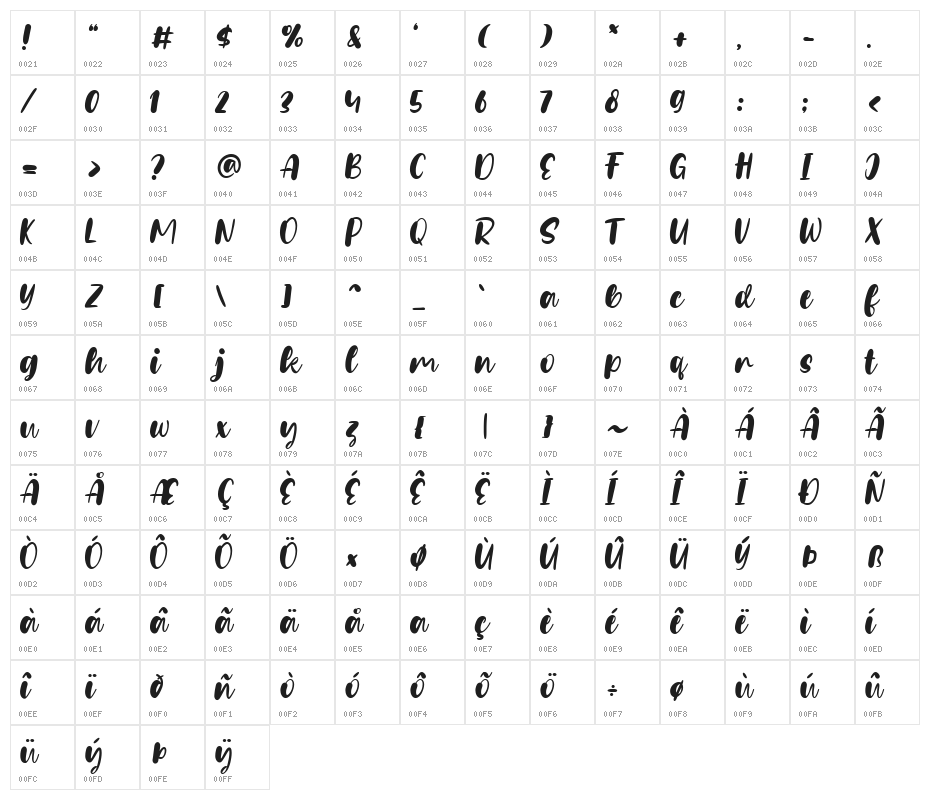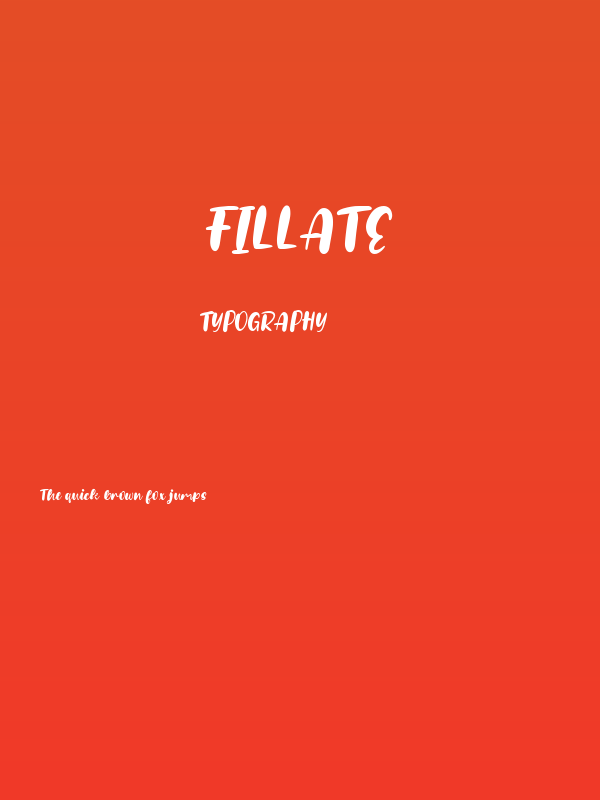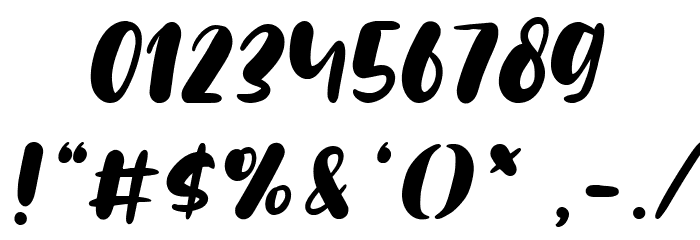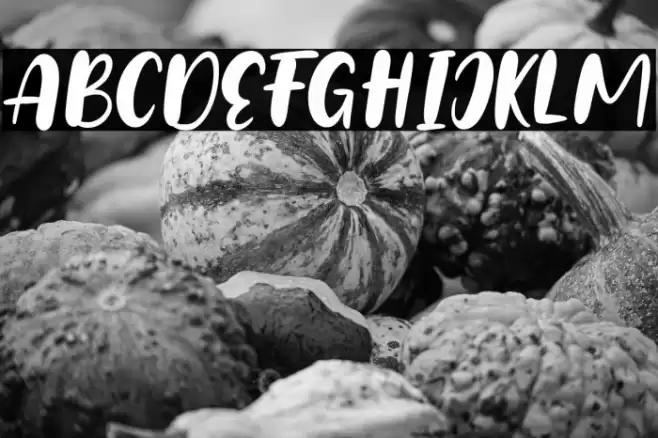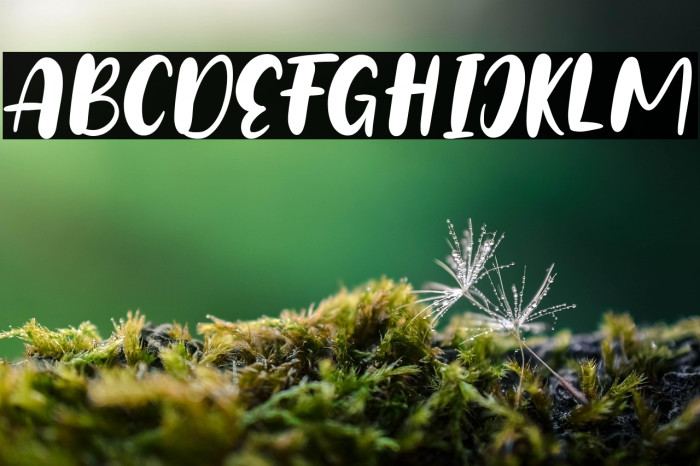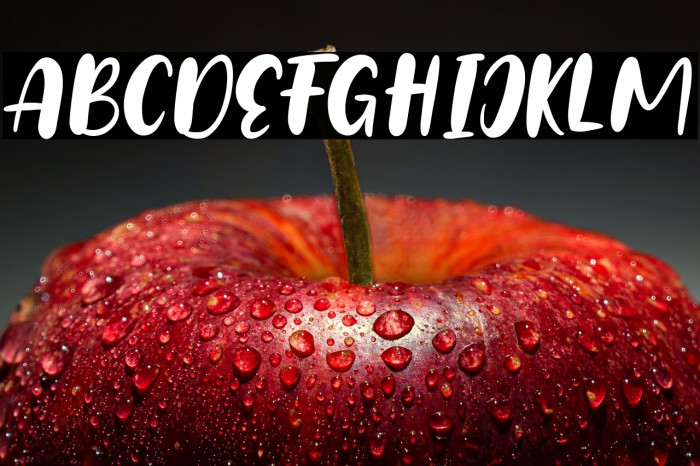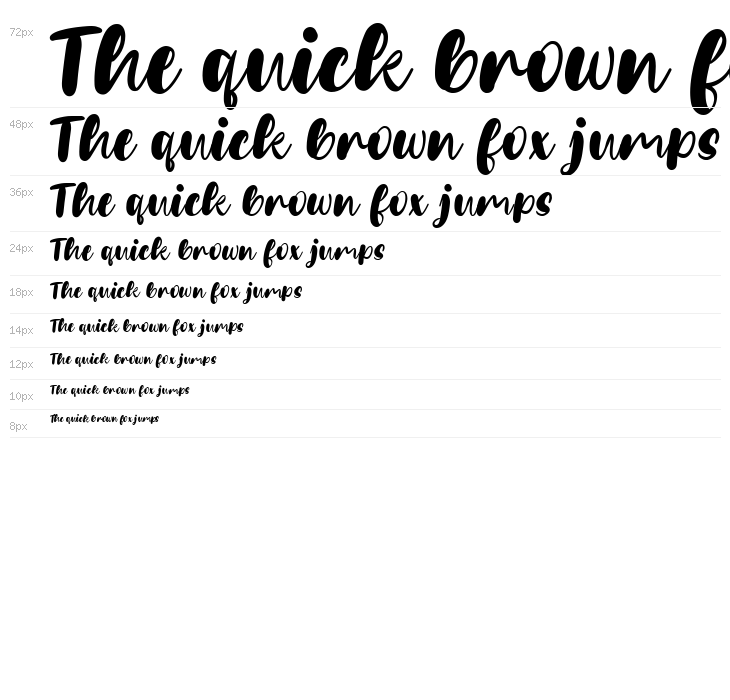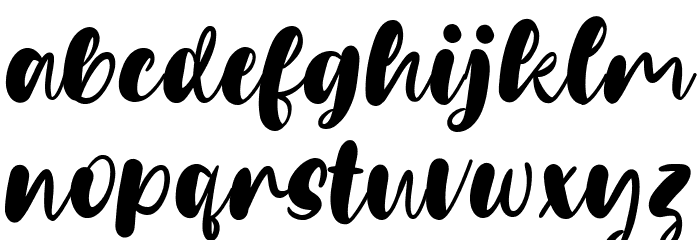
Fillate Font
Fillate Description
This font features a bold and expressive script style, characterized by its flowing, cursive letters that convey a sense of elegance and dynamism. The uppercase letters are tall and slightly slanted, while the lowercase letters maintain a consistent flow with smooth curves and rounded edges. The numbers and special characters are designed to match the overall aesthetic, with a playful yet sophisticated appearance. The strokes are thick, providing a strong visual impact, and the overall design is cohesive, making it suitable for a variety of creative applications.